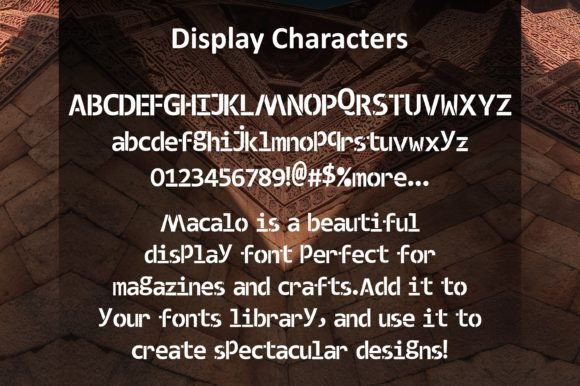
Introduction to Macalo Font
Have you ever stumbled upon the perfect font while working on a creative project, and it completely transforms the way your design looks? That’s exactly what happened when I discovered the Macalo Font. Its unique blend of elegance and playfulness instantly caught my attention, and I knew I had to learn more about it.
As a designer, I’m always on the lookout for high-quality fonts that can elevate my designs and make them stand out. The Macalo Font is a beautiful display font that’s perfect for magazines, crafts, and any other project where you want to add a touch of sophistication and whimsy. With its transparent background and clean lines, it’s a versatile design resource that can be used in a variety of contexts.
Key Features of Macalo Font
- High-quality design resource with a unique and creative style, perfect for various projects.
- Macalo Font is a versatile design resource suitable for both personal and commercial projects, including logos, graphics, and creative content.
- Unique characteristics and features make it an excellent addition to any design collection, offering endless possibilities for creative expression.
Honest Review: Macalo Font
As a designer, I’m always on the lookout for high-quality fonts to elevate my creative projects. Recently, I stumbled upon the Macalo Font, and I must say it’s a great addition to my design resource collection. With its modern and playful style, this font is perfect for projects that need a touch of whimsy.
- ✨ Great for creating a transparent background: The Macalo Font has a beautiful, delicate design that works well when layered on top of a transparent background.
- ✨ Perfect for digital design: This font is ideal for digital design projects, such as website headers, social media graphics, and mobile app interfaces.
While the Macalo Font is a great addition to any design collection, it does have some limitations. For example:
- ⚠️ Limited language support: The font only supports a limited number of languages, which may be a concern for designers working on international projects.
- ⚠️ Not ideal for print design: The font’s delicate design may not be suitable for print design projects, where a more robust font is often required.
Overall, the Macalo Font is a great resource for designers working on digital projects. Its modern design and free download make it an excellent addition to any design collection. Just be aware of its limitations, and you’ll be good to go!
Tips for Getting the Most Out of Macalo Font
To get the most out of the Macalo Font, use it in creative projects where a unique and high-quality font is needed. It is perfect for designing logos, branding materials, and other visual elements that require a touch of sophistication.